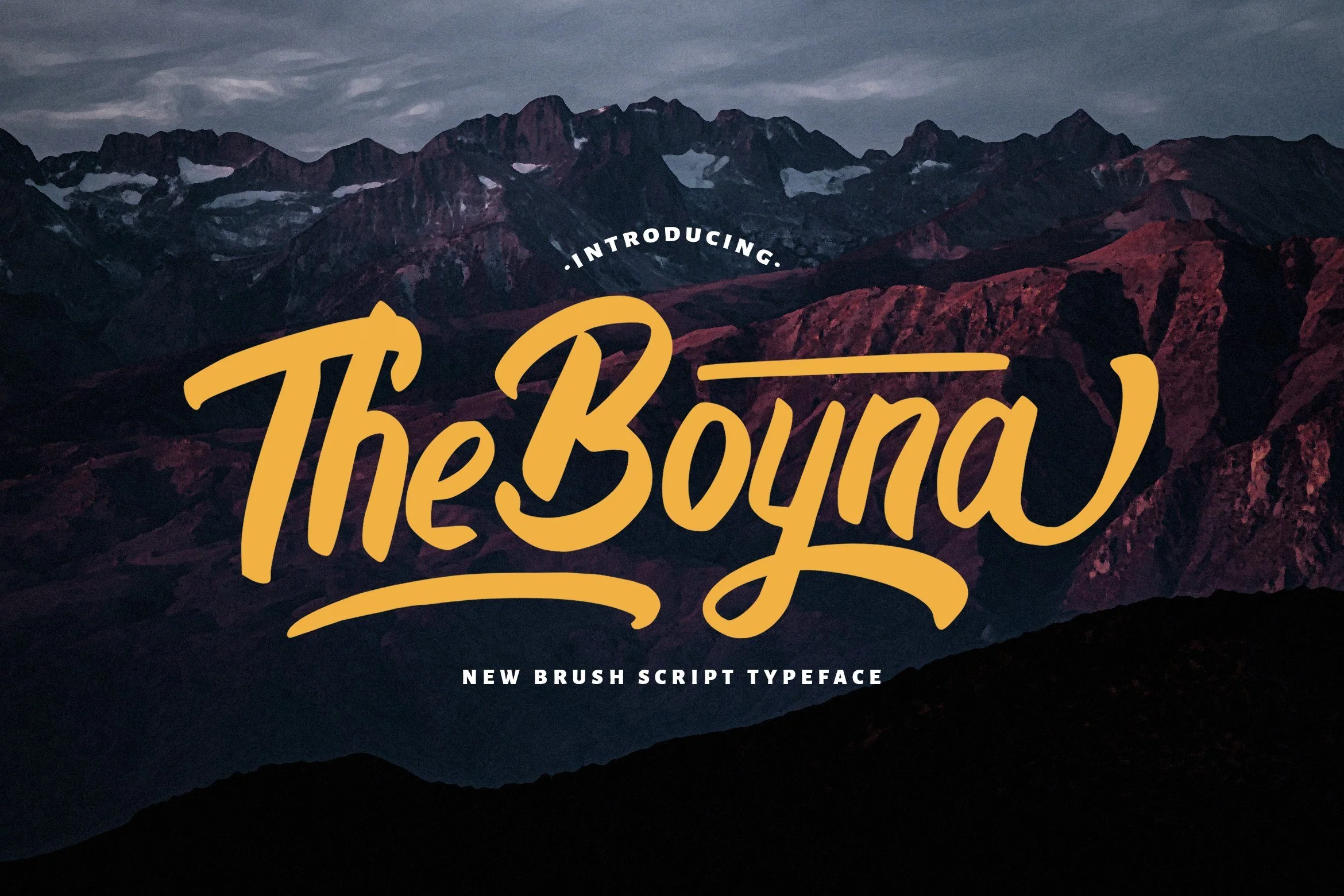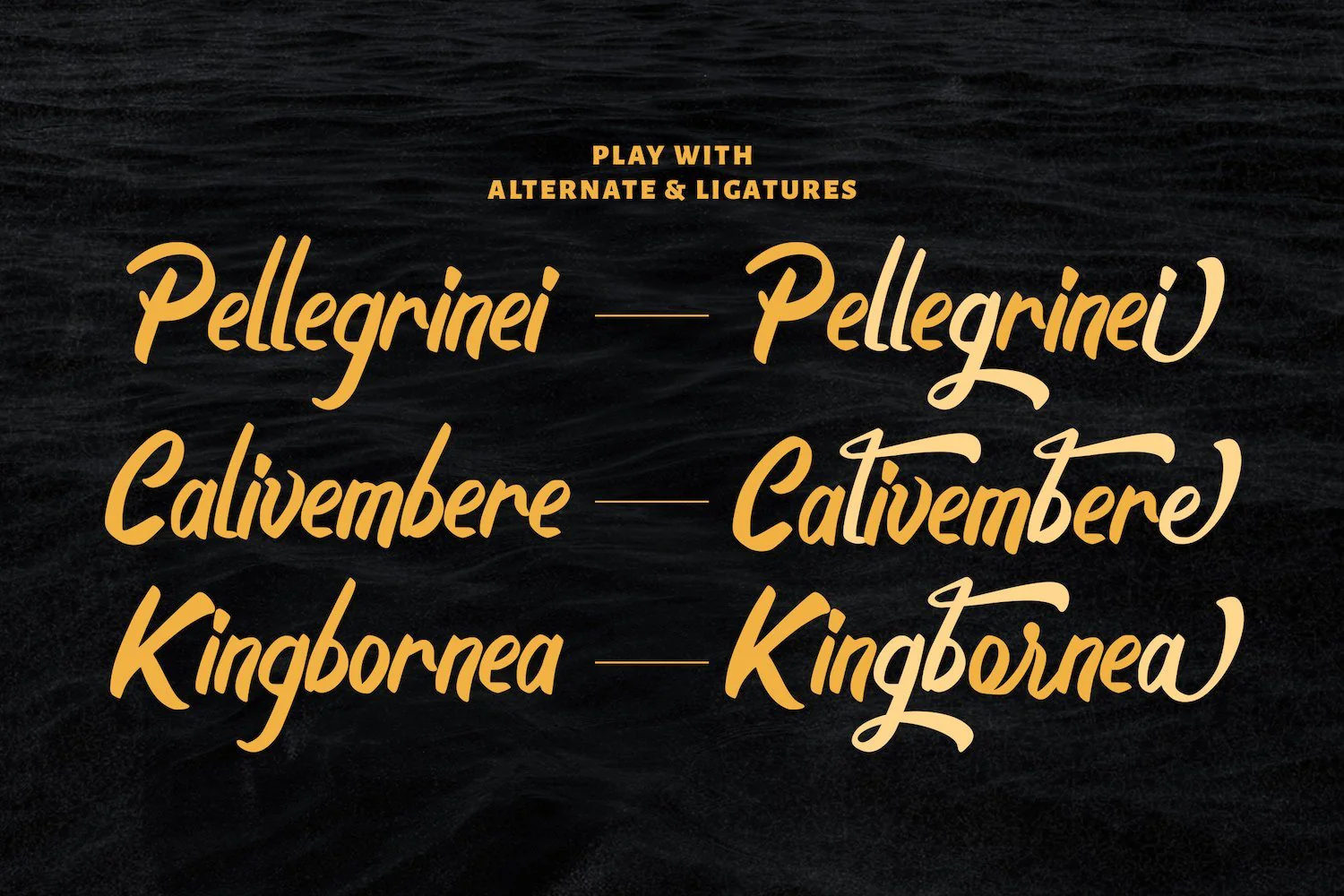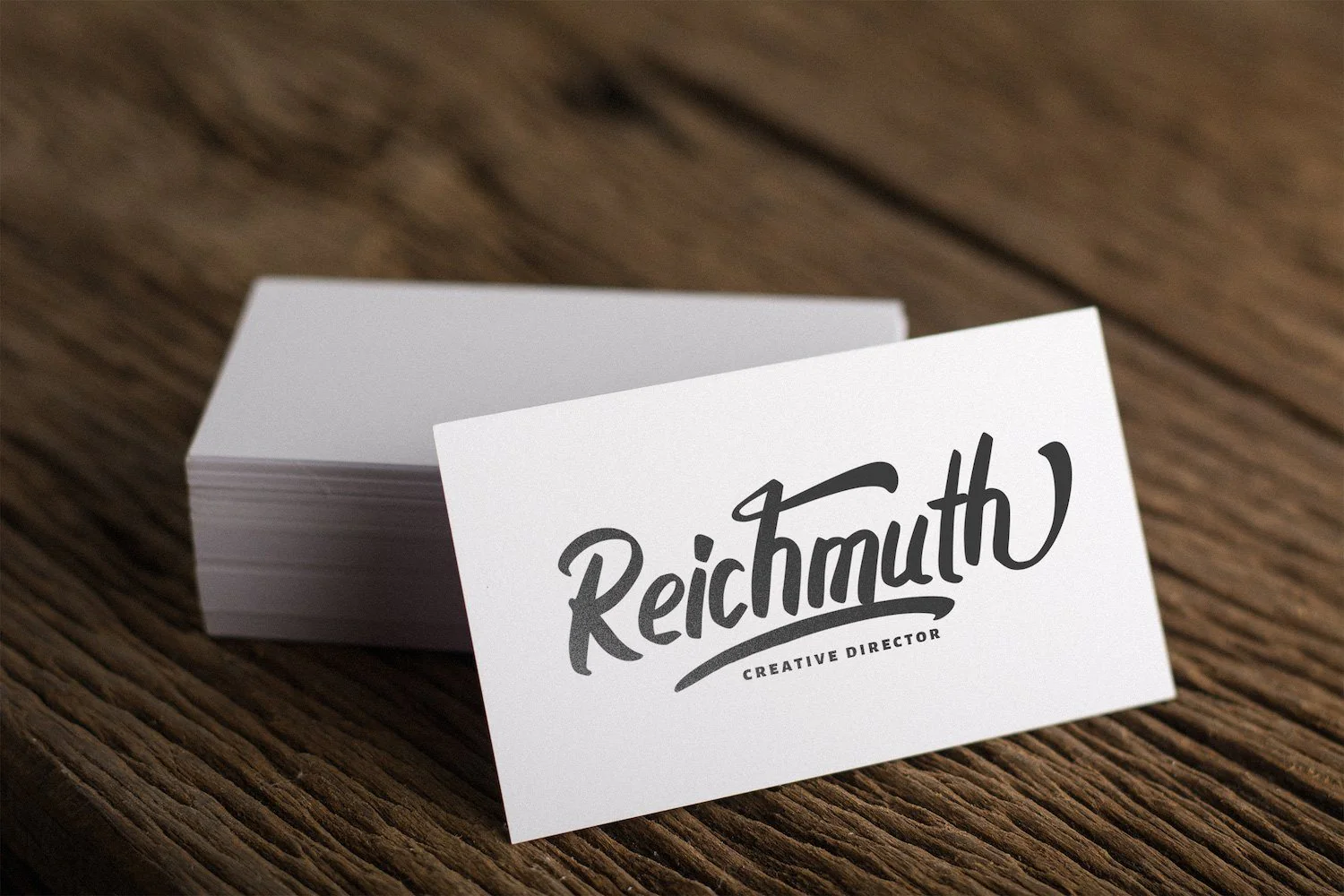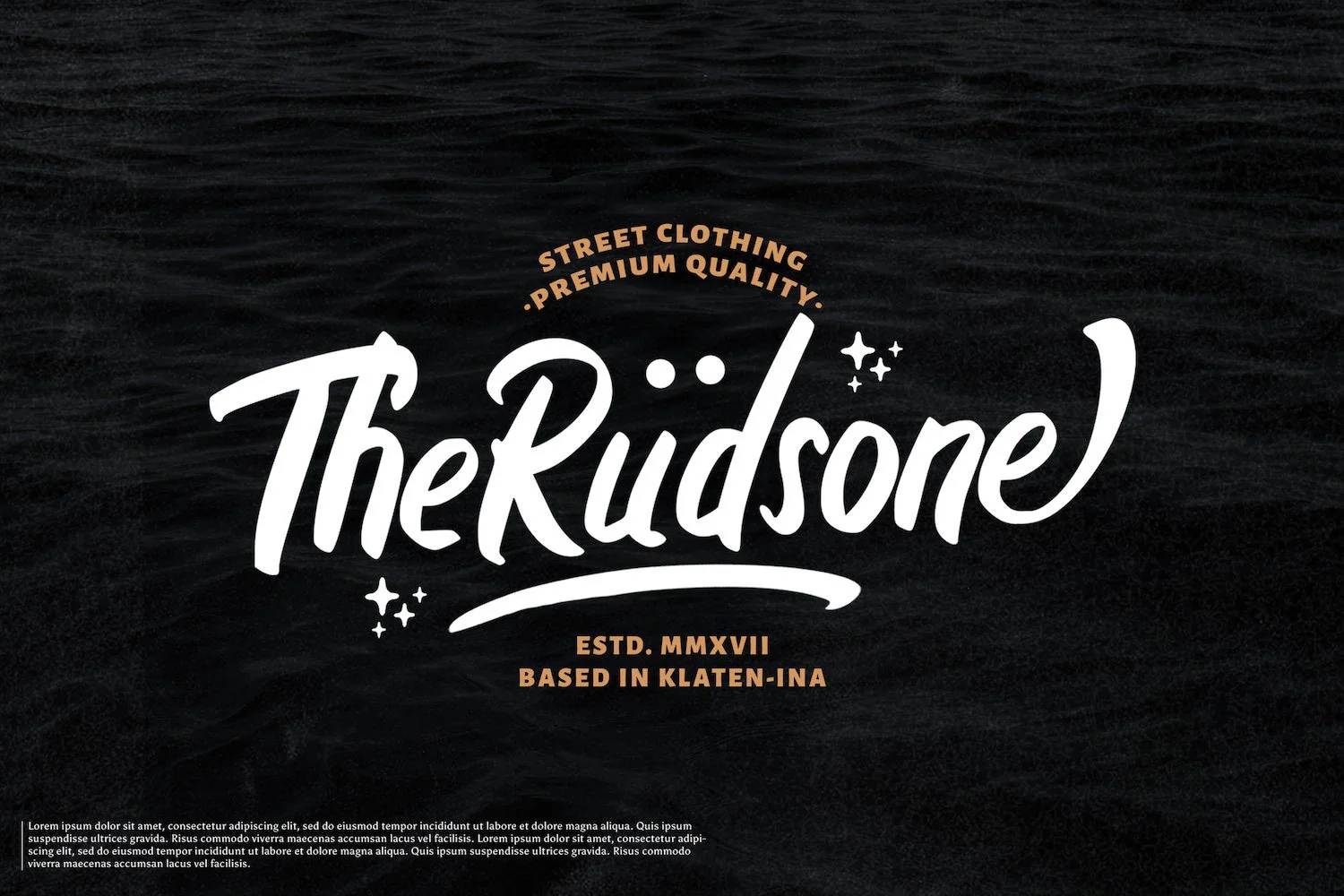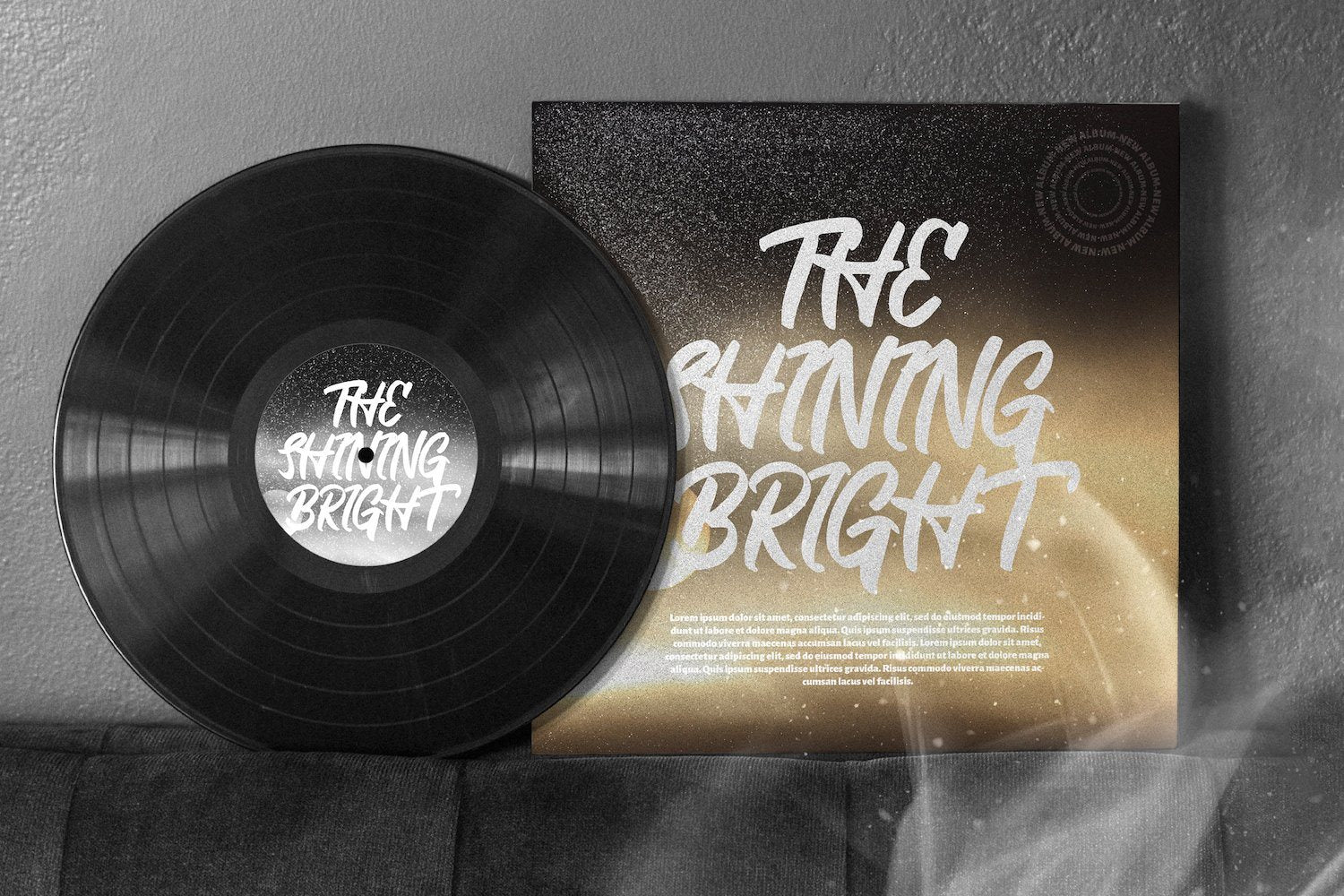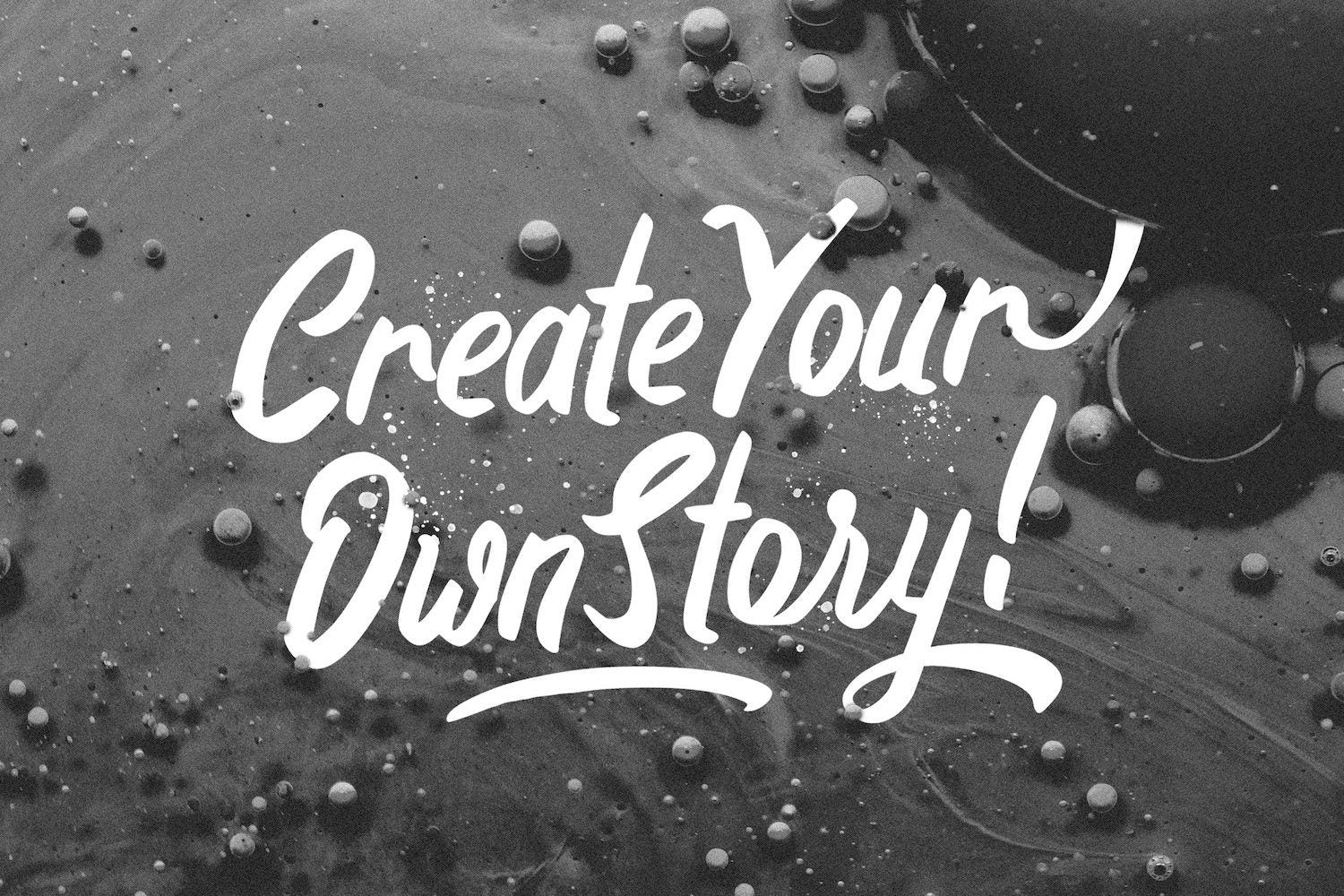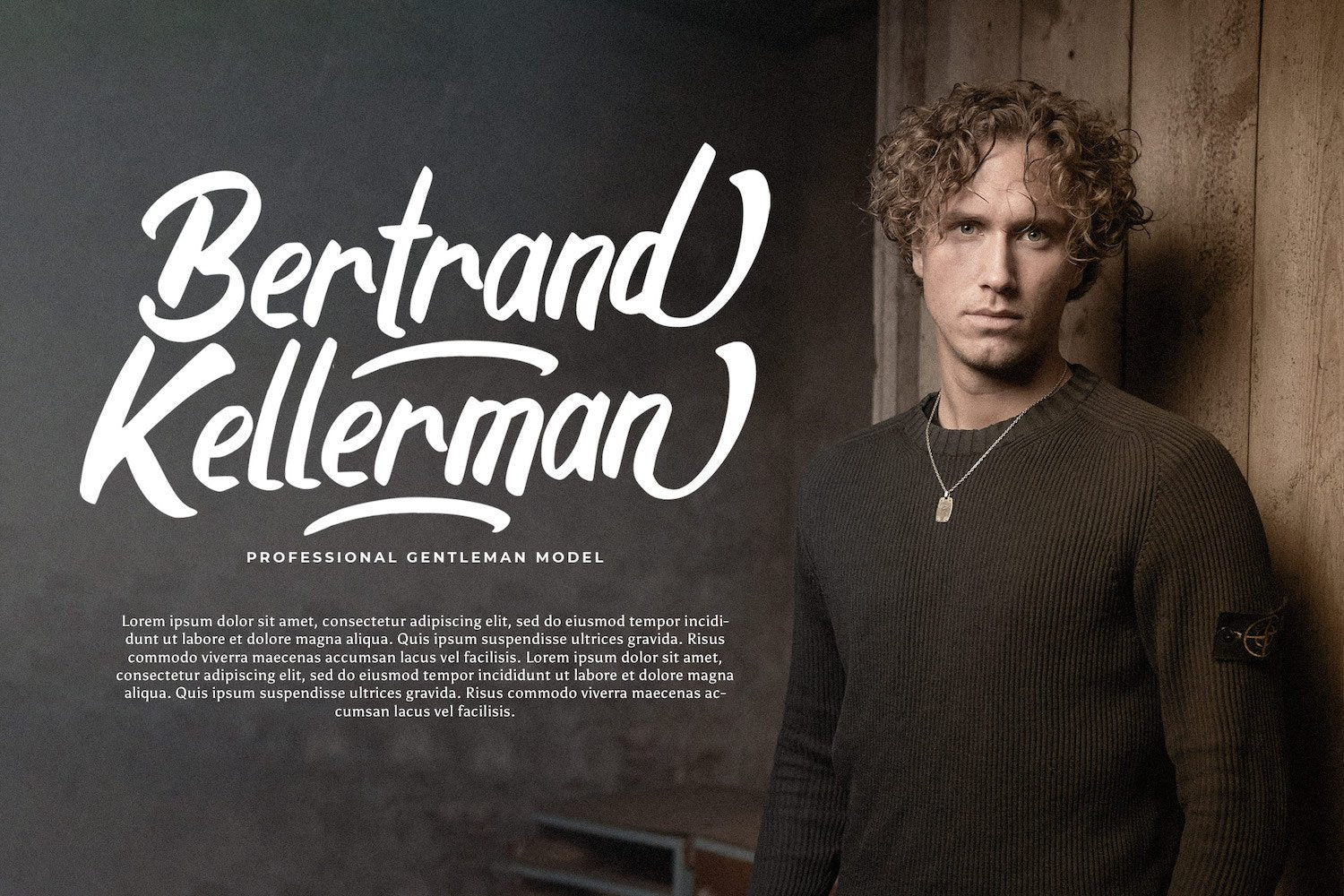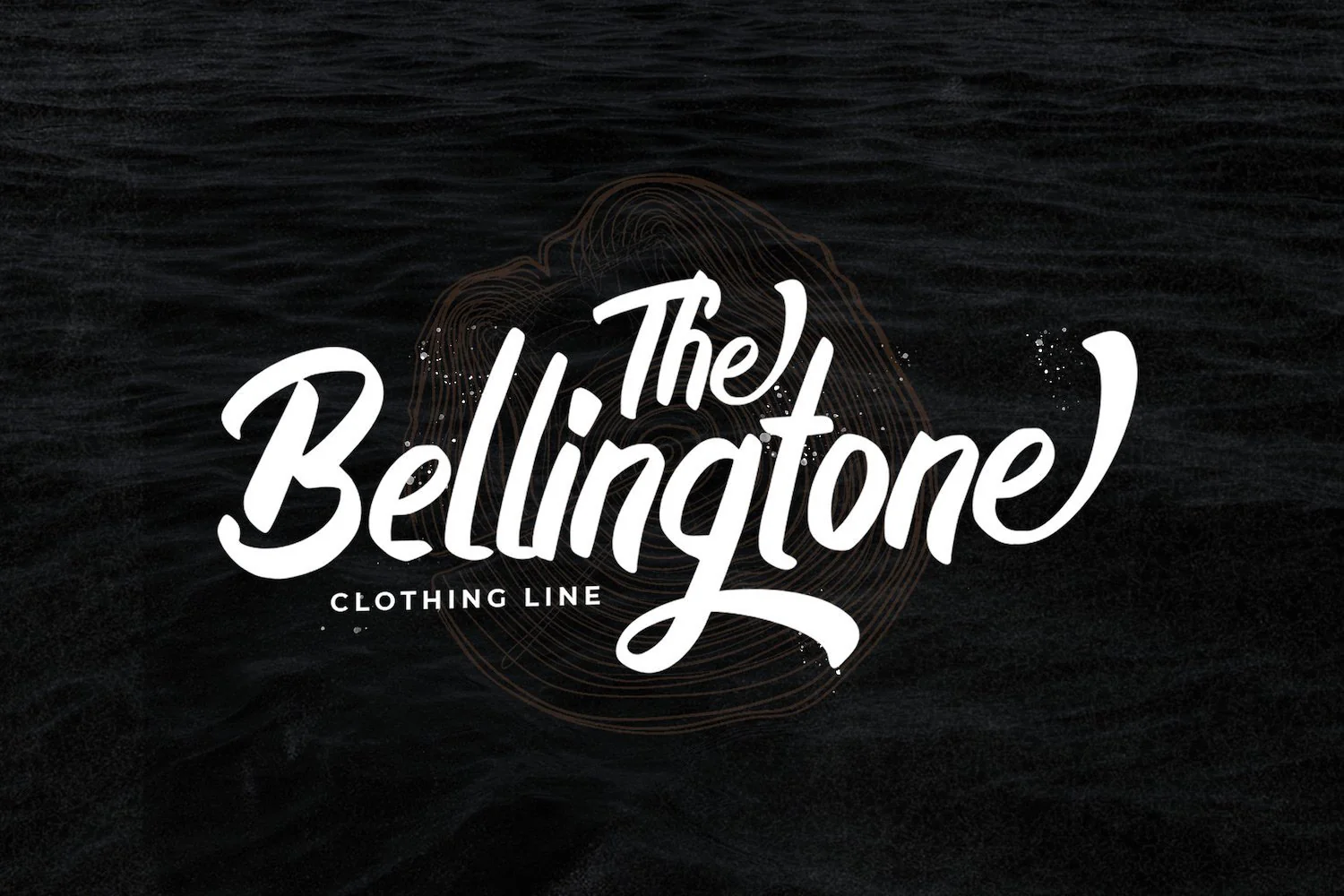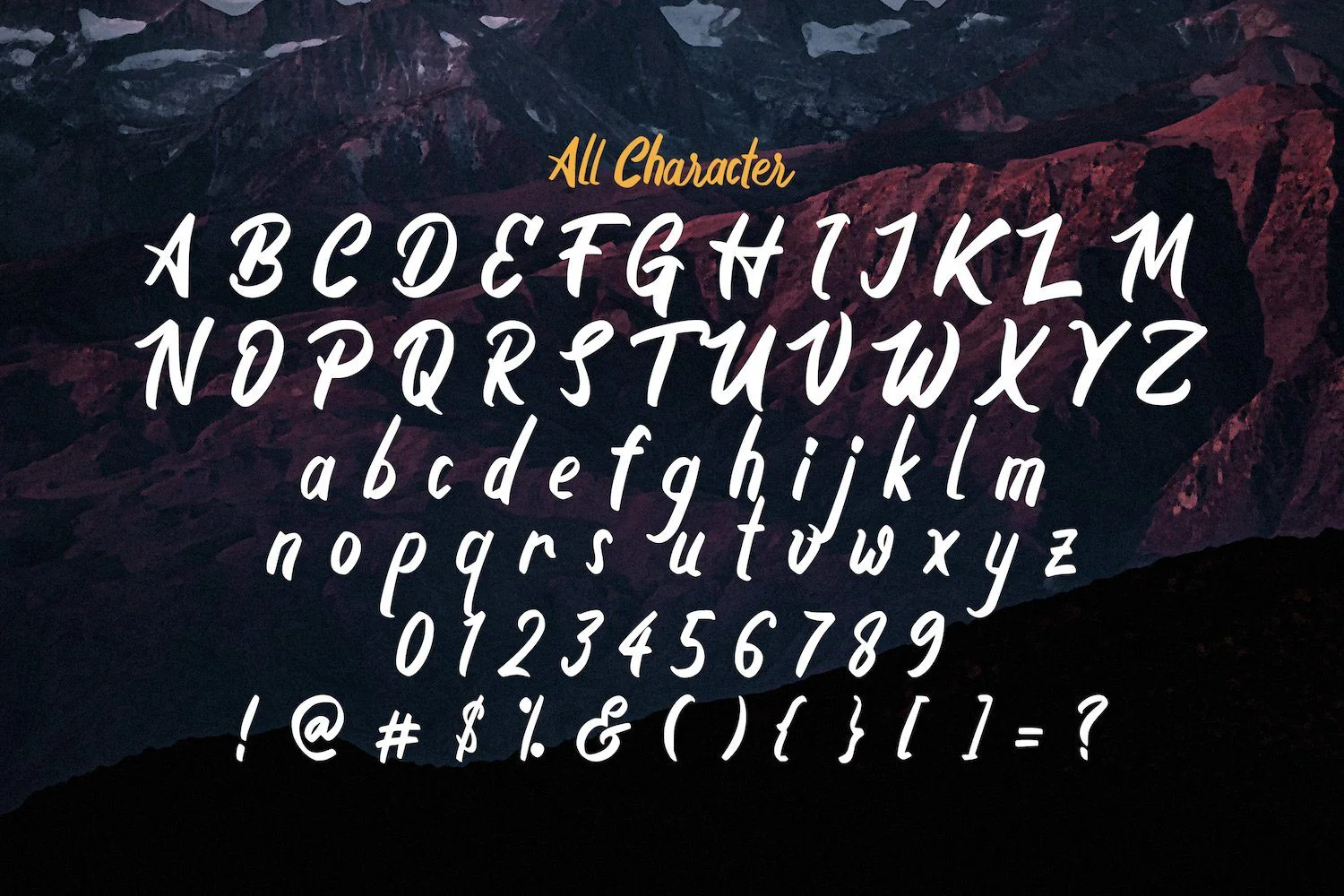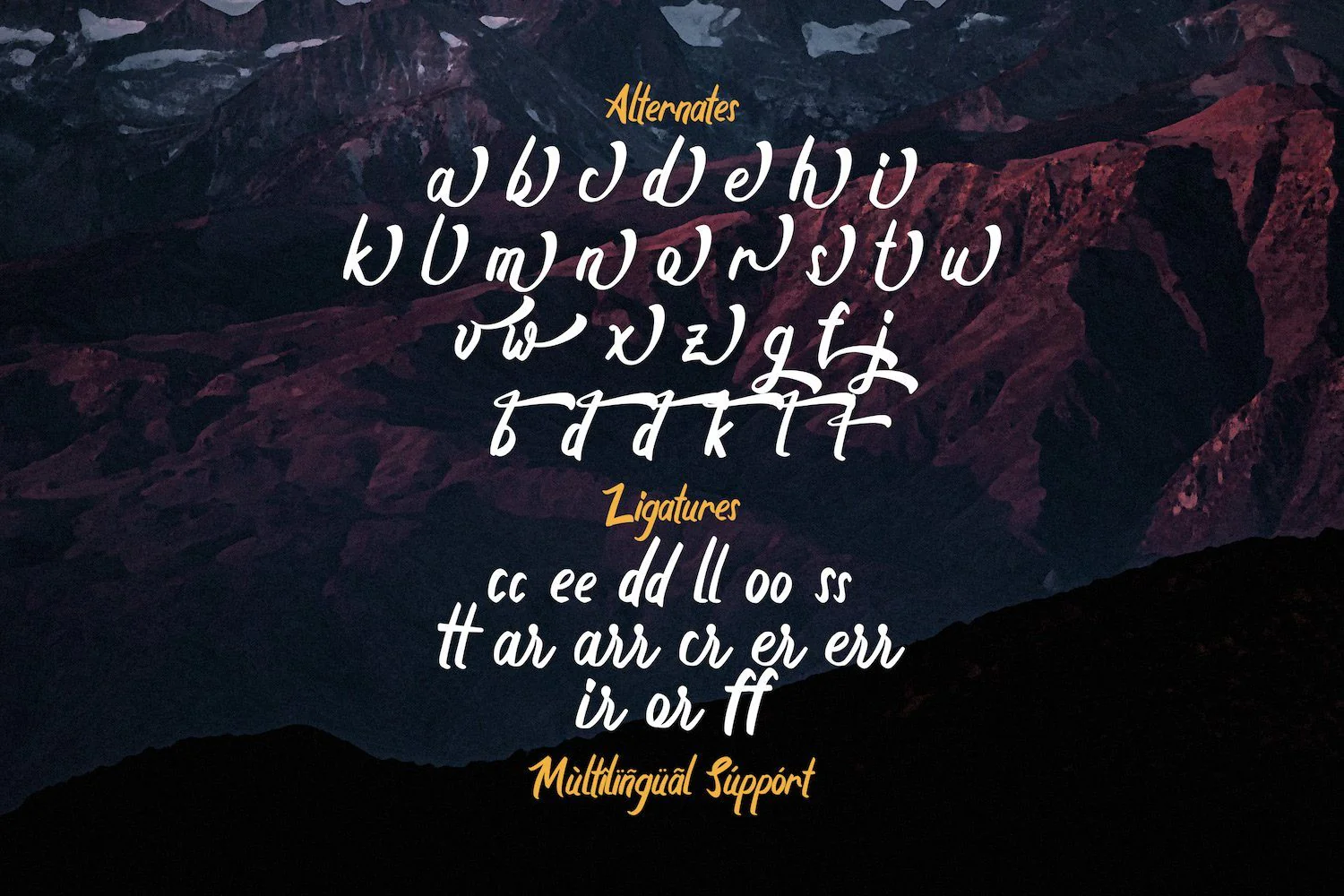
Boyna - Bold Script Font
Introducing Boyna - Bold Script Font
Boyna is a strong and bold script font. It is curved, rounded, and has an unique vintage style, that is perfect for branding. Add it to your most creative ideas and notice how it makes them come alive!
Introducing Boyna - Bold Script Font
Boyna is a strong and bold script font. It is curved, rounded, and has an unique vintage style, that is perfect for branding. Add it to your most creative ideas and notice how it makes them come alive!